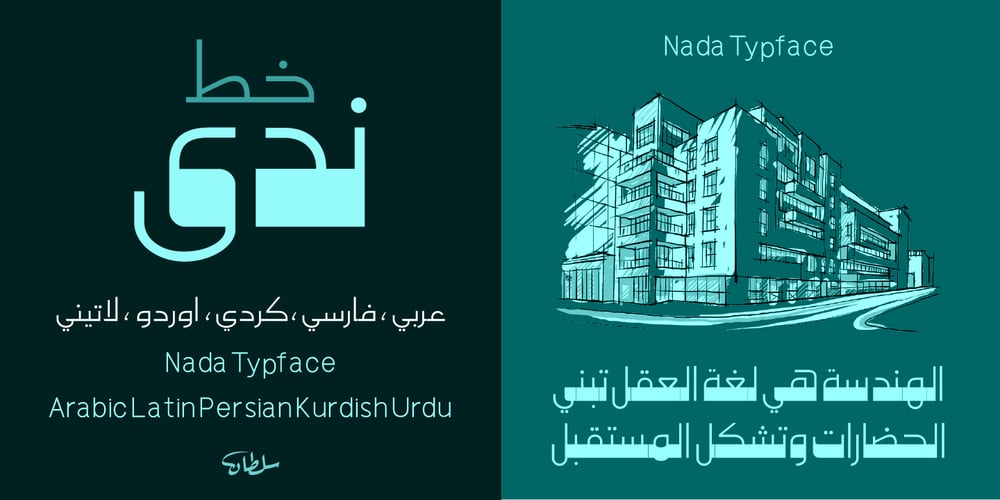
SF Nada Font Family was designed by Sultan Maqtari and published by Sultan Fonts. SF Nada contains 4 styles and family package options. Nada’s Key Features:4 Weights for Engineering Designs and Headlines!Dear Engineers,I am thrilled to present to you the fruits of my hard work and dedication: the new digital font, “Nada”. This font is more than just a collection of letters and weights; it is a reflection of my deep passion for engineering and a celebration of the simple yet elegant beauty of engineering design. Characterized by balanced geometric structures and forms inspired by fundamental geometric elements, Nada is a visual translation of the laws of geometry.With Nada, I aimed to create a new visual language that reflects these values and serves engineers in various disciplines. Nada is distinguished by its simple, clear engineering style and includes a variable font and four harmonious weights: Regular, Medium, Bold, and Black. This makes it ideal for use in engineering diagrams, technical designs, and graphic designs, as well as for advertising and packaging, making it a versatile design tool.The name “Nada” was not chosen arbitrarily; it is an homage to my daughter, the architectural engineer Nada Sultan, who was my inspiration and motivation throughout this project. I vividly remember the moments I spent with her as she explained the details of her studies and work. Her passion for engineering and creativity was the driving force behind designing this font, and I hope that Nada will serve as an inspiration to all young engineers.Through her, I dedicate this font to all engineers for personal use, hoping that they will find it a valuable tool for expressing their ideas more clearly and creatively. I hope that Nada will be a valuable addition to the design library and will contribute to developing the visual language in various engineering fields.